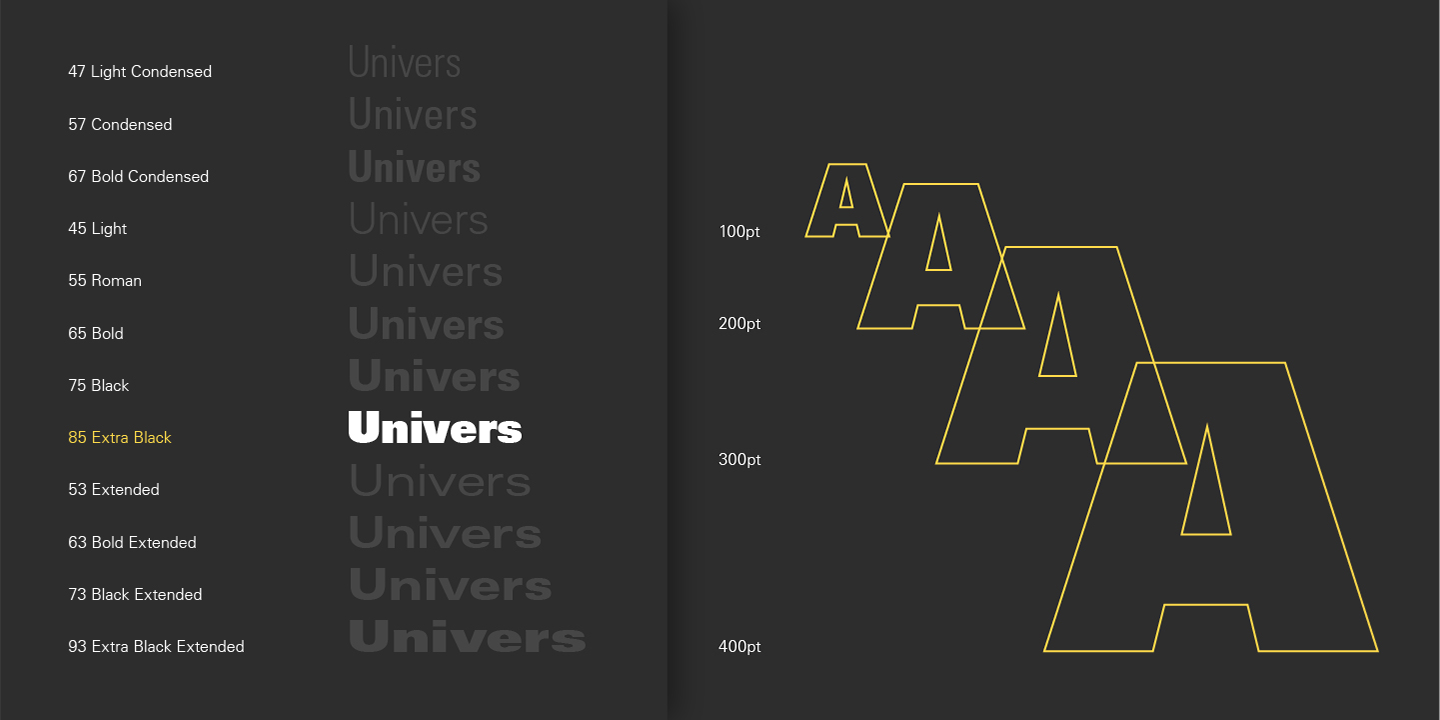
The Univers Font is an unparalleled choice for projects that demand a modern, highly versatile, and impeccably designed sans-serif aesthetic with exceptional clarity and a timeless quality. As a monumental achievement in typography, it's perfectly suited for corporate branding, complex editorial layouts (books, magazines, reports), digital interfaces (UI/UX), public signage systems, information design, and virtually any application that requires a clean, professional, and universally legible typeface. Its systematic yet elegant character makes it ideal for conveying a sense of authority, precision, and enduring sophistication.
What makes Univers Font so exciting is its groundbreaking design as one of the first truly comprehensive and unified typeface families. Its logical structure, consistent stroke weights, and harmonious proportions across an enormous range of weights and widths ensure outstanding readability and aesthetic consistency in any context. This font isn't just about displaying words; it's about providing a robust and flexible typographic system that empowers designers to create clear, organized, and elegant communications. It excels at delivering information with absolute clarity and an undeniable sense of modern professionalism, making your content feel both authoritative and effortlessly polished. The "Univers Font Free Download" also makes it accessible for test projects. Its enduring legacy in design speaks volumes about its effectiveness and versatility.
The Univers Font family is legendary for its vast and systematic array of weights and widths, often described using a numerical system (e.g., Univers 45 Light, Univers 55 Roman, Univers 65 Bold, Univers 75 Black, Univers 85 Extra Black, and various condensed or extended versions). This comprehensive structure provides unparalleled flexibility for designers to create nuanced typographic hierarchies, ensuring precise control over emphasis, flow, and visual balance within your designs. It often includes a full set of accompanying italic versions for each weight, along with specialized numerals and a wide range of OpenType features.
Whether you're developing a complex corporate identity, designing an extensive publication, or creating a public wayfinding system, the Univers Font Free Download offers an indispensable tool. Its unparalleled versatility, clarity, and robust functionality make it a premier choice for any project that requires a typeface of lasting quality, professional polish, and universal applicability.